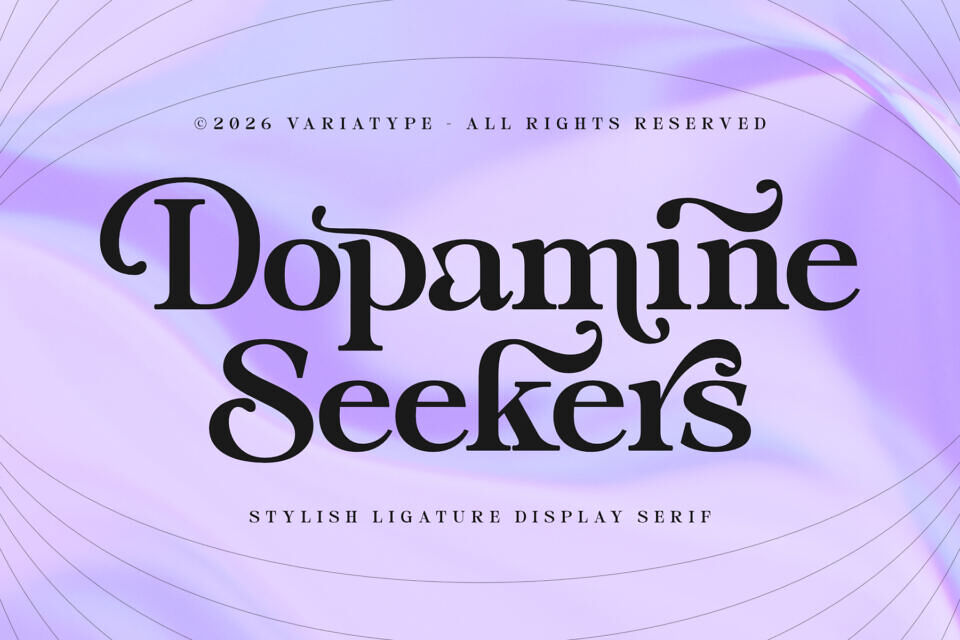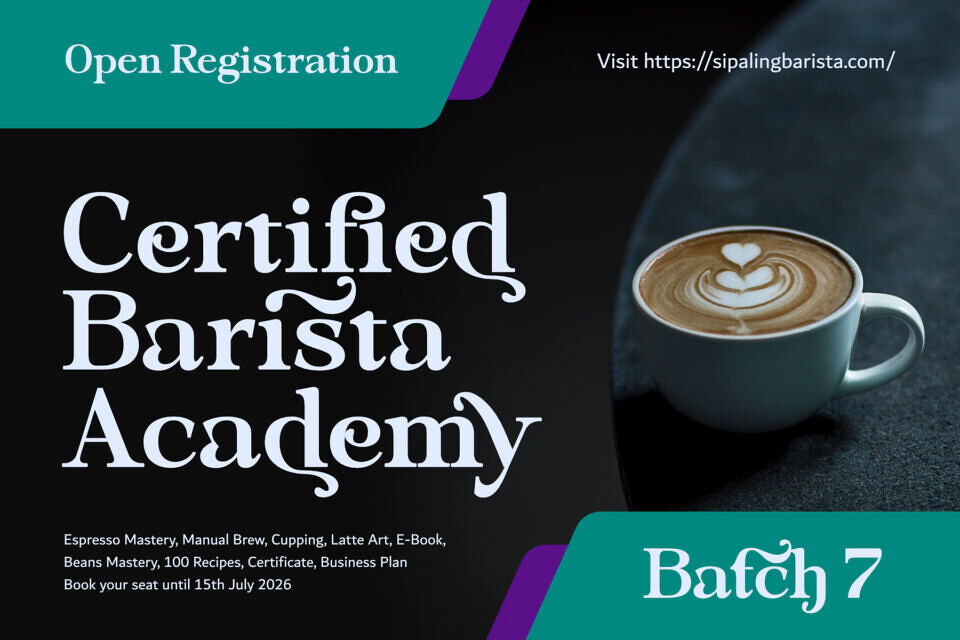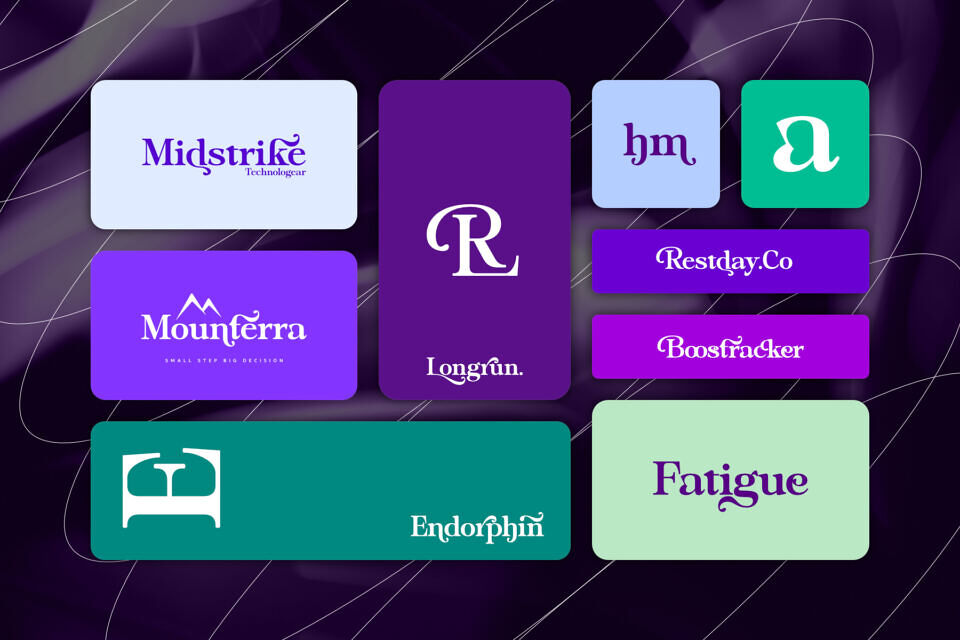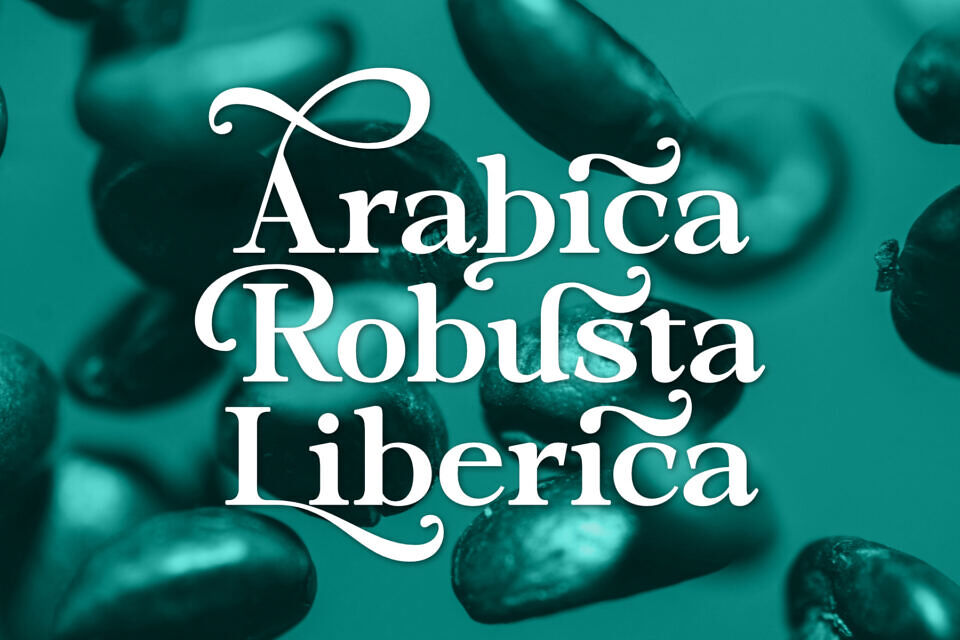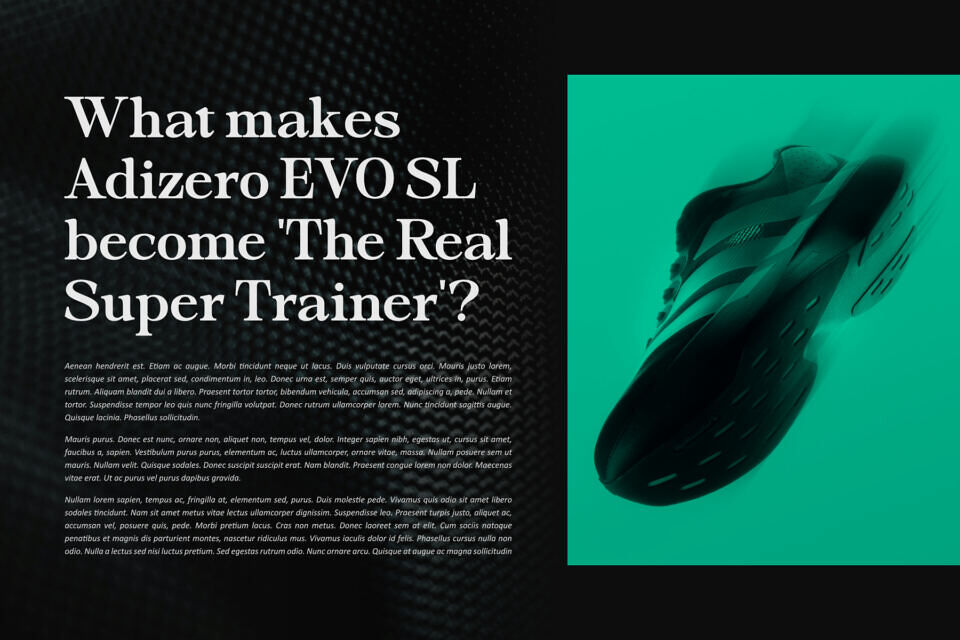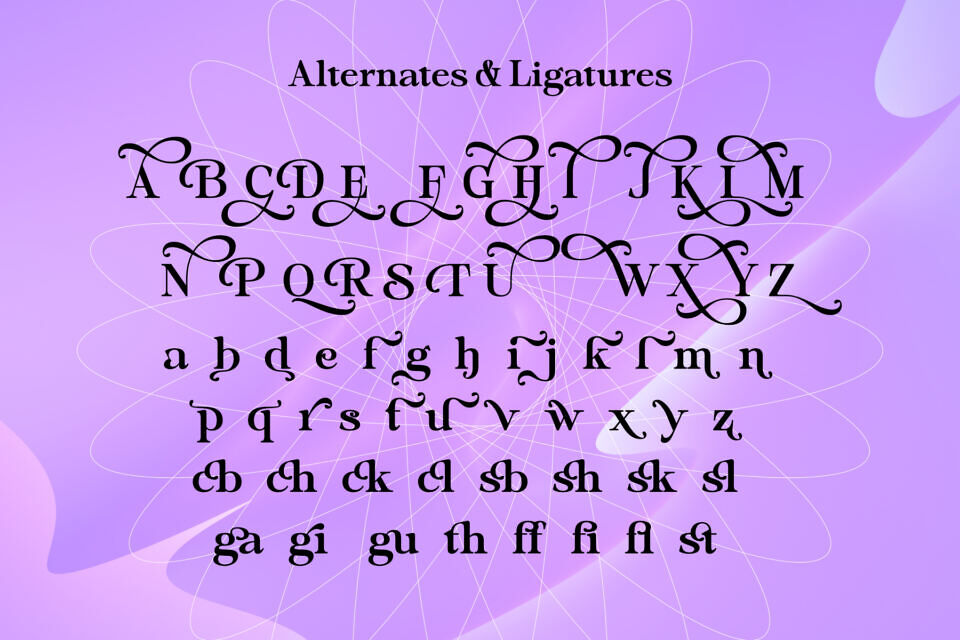
Dopamine Seekers Font
Dopamine Seekers is a stylish ligature display serif designed for brands that thrive on attention, aspiration, and emotional connection. With its expressive curves, refined contrast, and distinctive alternates, this typeface transforms ordinary typography into a memorable brand experience.
Perfect for clothing labels, premium products, sports apparel, creative agencies, luxury packaging, and modern lifestyle brands, Dopamine Seekers helps your message stand out with confidence and elegance while creating visuals that feel both contemporary and distinctive.